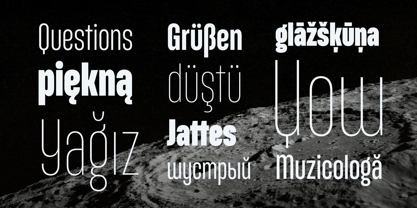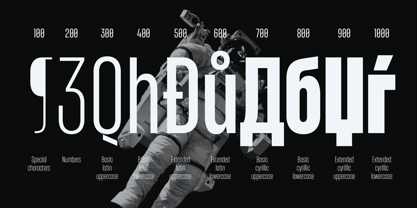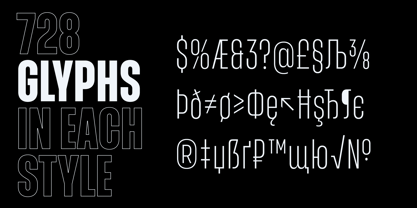
Entropia
by Slava Antipov
The Entropia Font Family was designed by Slava Antipov and published by Slava Antipov. Entropia contains 30 styles and family package options.
Entropia is a new condensed geometric grotesque. It supports many languages using Latin as well as Cyrillic (over 130 languages in total). The font consists of 10 weights, their italic versions, as well as a retalic version. In total, the font family includes 30 styles. Entropia supports many OpenType features such as ligatures, alternate letterforms, fractional numbers, and more. The font is perfect for branding, social media, logos, presentations, posters, packaging and much more.
About Slava Antipov
Slava Antipov is a font designer. He specialize in Latin and Cyrillic fonts. He has an unusual look at letters. Typography is his passion. Slava Antipov likes to create fonts with unique geometry. His fonts attract the attention with their unusual shape. Slava Antipov is also interested in developing sans serif, serif and slab serif fonts. A large number of font families are planned for the future. Styles in them will differ from each other in weight, width and other parameters. It is also planned to cover more types of scripts in the future, for example, Greek, Hebrew and others.